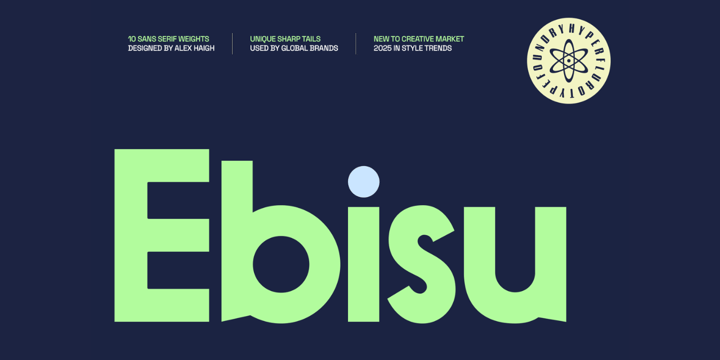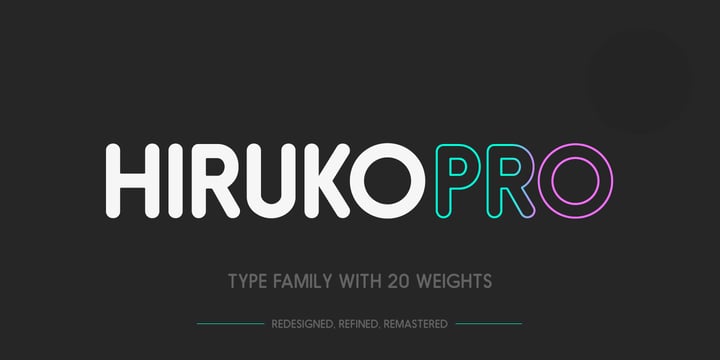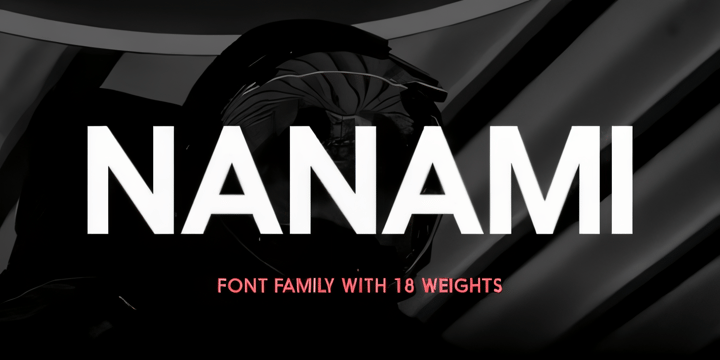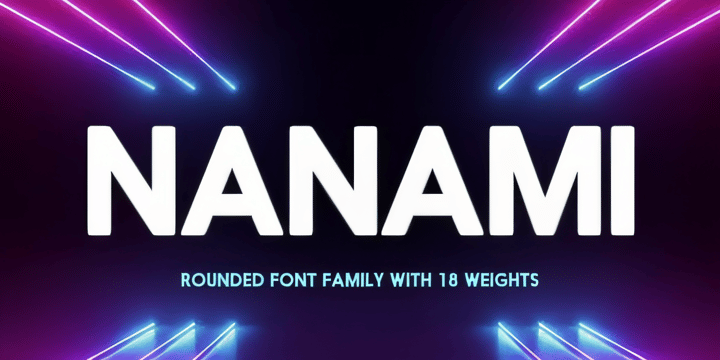
Workhorse Pro Bundle
THE WORKHORSE TEXT SANS BUNDLE – 56 Fonts. Built to Work. Priced to Move.
Meet your new type toolkit: 56 versatile, text-optimized sans-serif fonts designed to handle everything from body copy to UI, branding to multilingual projects. Clean, crisp, and highly legible, these fonts were made to work hard—without getting in the way.
Perfect for designers, developers, and studios who need dependable, performance-driven typefaces that scale beautifully across digital and print.
What’s Inside:
56 Pro-Grade Sans-Serif Fonts — Functional, clean, and made for serious typography
Multiple Weights + Styles — Regulars, Italics, and bolds that actually feel bold
Text-Optimized — Designed for long-form legibility and sharp rendering
Cyrillic Support on Select Fonts — Take your message global